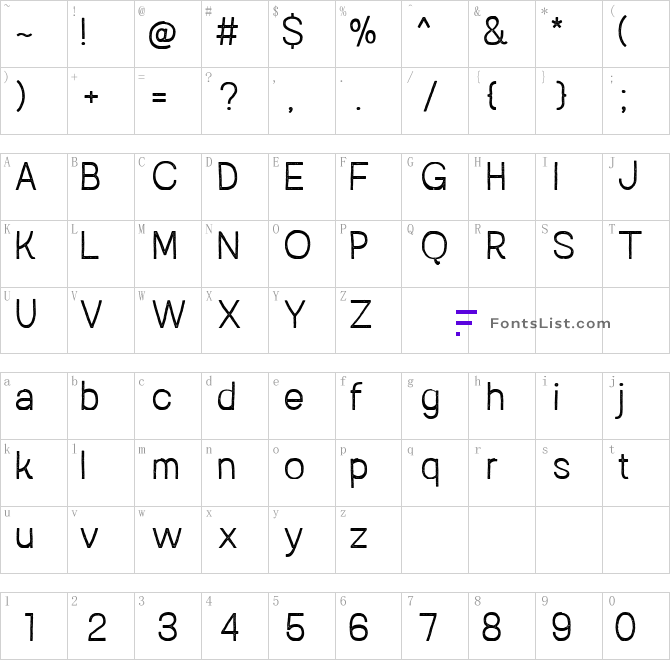
- Font Name:Austral Sans Stamp Lig
- Subfamily:JuliaMartinezDiana,Antipixel: Austral Sans Stamp Light: 2016
Austral-Sans-Stamp-Light.ttf is a very beautiful artistic font, Austral-Sans-Stamp-Light.ttf is widely used in the design and printing of various books and pictures,Austral-Sans-Stamp-Light.ttf has a strong visual impact,Austral-Sans-Stamp-Light.ttf is a commonly used font in newspapers, magazines and books, and is used in posters, e-commerce Poster design, store design, logo design, font design and other fields.Austral-Sans-Stamp-Light.